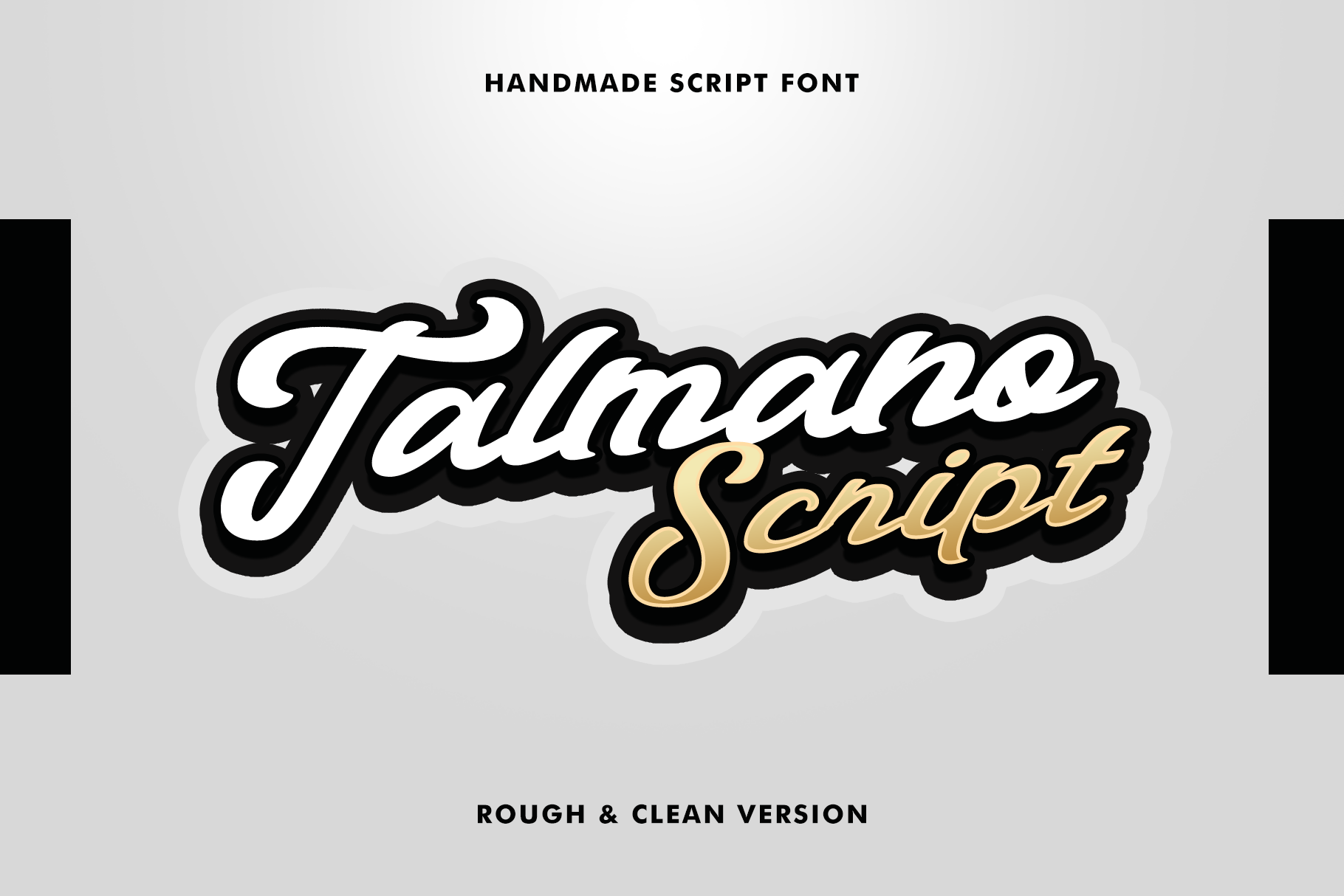
Talmano Script Font - a new modern fresh script with a handwritten and script style make this font looks elegant, natural, stylish and perfect for any awesome projects that need handwriting taste.
Talmano Script Fontwould perfect for photography, watermark, social media posts, advertisements, logos & branding, invitation, product designs, label, stationery, wedding designs, product packaging, special events or anything that need handwriting taste.